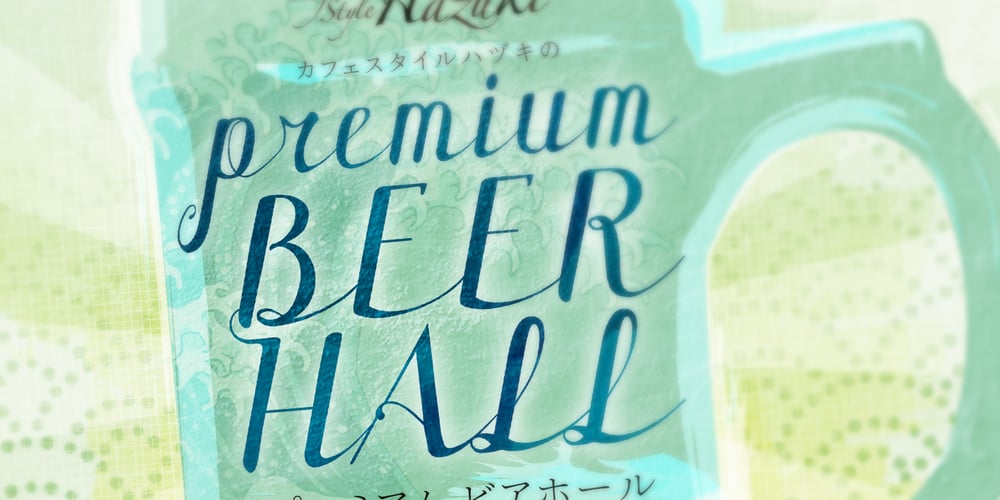
Forest Cursive Font Family was designed by Natsuko Hayashida and published by Okaycat. Forest Cursive contains 2 styles and family package options. Okaycat presents “Forest Cursive”. Forest Cursive is an beautiful connected letter cursive script arriving with ornate & simplified styles. Forest Cursive features lovely detail & artistic nature. Forest Cursive is extended, containing West European diacritics & ligatures, making it suitable for multilingual environments & publications.